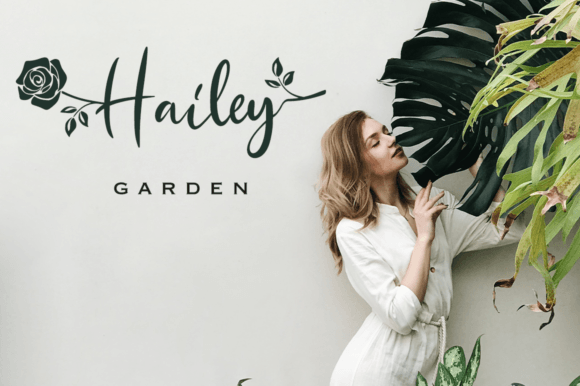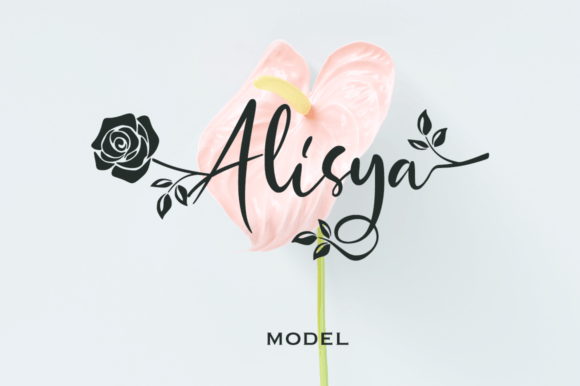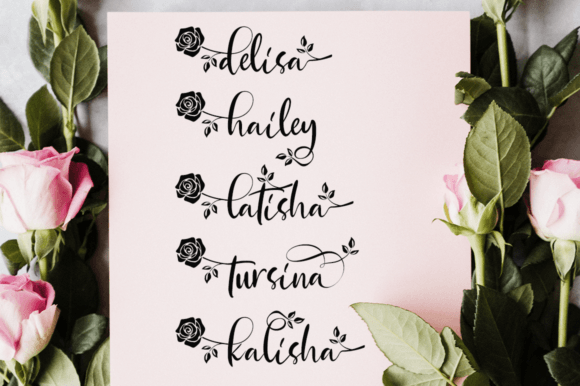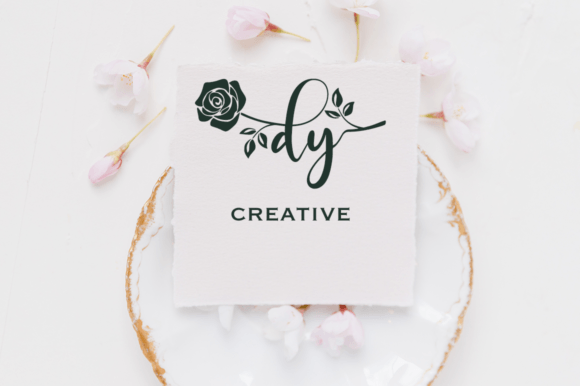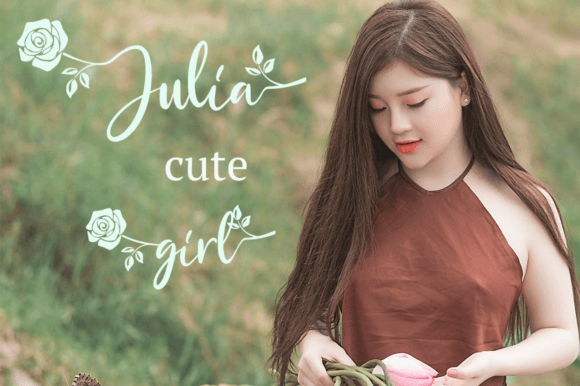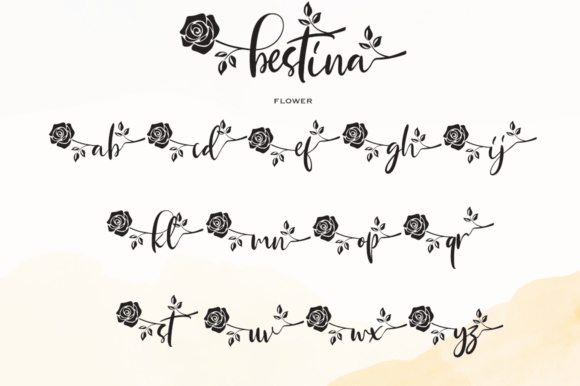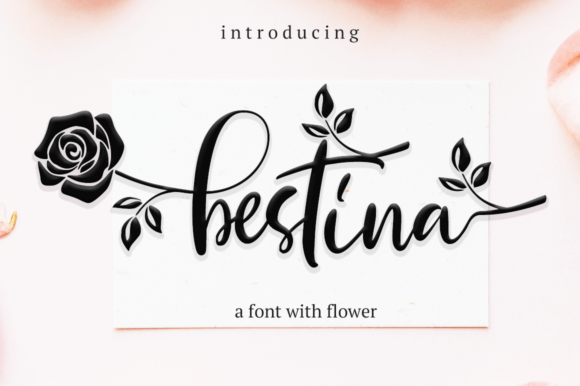
Discover the Charm of Bestina Font: Elevate Your Designs with Elegance
In the world of typography, few fonts capture the essence of romance and sophistication as beautifully as Bestina Font. This sweet and stylish calligraphic script font has become a favorite among designers and crafters looking to add a touch of elegance to their projects. Whether you’re working on wedding invitations, thank you cards, quotes, greeting cards, logos, business cards, or any other design that calls for a lovely, romantic touch, Bestina Font is an excellent choice.
The Beauty of Bestina Font
Bestina Font boasts a unique blend of classic calligraphy and modern style. Its fluid strokes, graceful curves, and delicate connections make it a standout in the world of script fonts. The font’s design is inspired by traditional calligraphy, yet it carries a contemporary feel that makes it versatile and adaptable to various design needs.
Why Designers and Crafters Love Bestina Font
- Romantic Appeal: Bestina Font exudes romance and sophistication, making it perfect for wedding-related designs, Valentine’s Day cards, and other projects that require a touch of love and elegance.
- Versatility: This font is incredibly versatile and can be used for a wide range of projects, from formal invitations to casual greeting cards, and from logos to business cards.
- Ease of Use: Bestina Font is easy to read and works well in both digital and print formats, making it a great choice for designers and crafters who work across different mediums.
- Customization: The font comes with a range of variations and can be easily customized to fit the specific needs of your project, allowing for endless creativity and experimentation.
Using Bestina Font in Your Designs
Integrating Bestina Font into your designs is straightforward and fun. Here are a few tips to get you started:
- Pair it with Simplicity: Bestina Font shines when paired with simple, clean backgrounds or complementary fonts. This ensures that the focus remains on the beautiful calligraphy.
- Experiment with Colors: While Bestina Font looks stunning in traditional black and white, don’t be afraid to experiment with colors. Soft pastels, gold, and silver can add an extra layer of elegance to your designs.
- Play with Sizes: The font’s versatility means it can be used in various sizes, from large headings to smaller body text. Experiment with different sizes to create visual hierarchy and interest.
Bestina Font in Digital and Print Media
One of the remarkable features of Bestina Font is its adaptability to both digital and print media. Here’s how you can make the most of it:
- Digital Designs: Use Bestina Font in your digital projects, such as social media graphics, website headers, and email newsletters, to add a personal and elegant touch.
- Print Designs: For print materials like wedding invitations, business cards, and greeting cards, Bestina Font offers a level of sophistication and charm that is hard to match.
Bestina Font is more than just a calligraphic script font; it’s a tool for designers and crafters to add a touch of elegance and romance to their projects. Its versatility, beauty, and ease of use make it an invaluable asset in the world of design. Whether you’re working on a wedding invitation, a logo, or a simple greeting card, Bestina Font can elevate your design and make it truly special.
So, why settle for ordinary when you can add a touch of sophistication and charm to your designs? Discover the beauty of Bestina Font today and take your projects to the next level of elegance and romance.